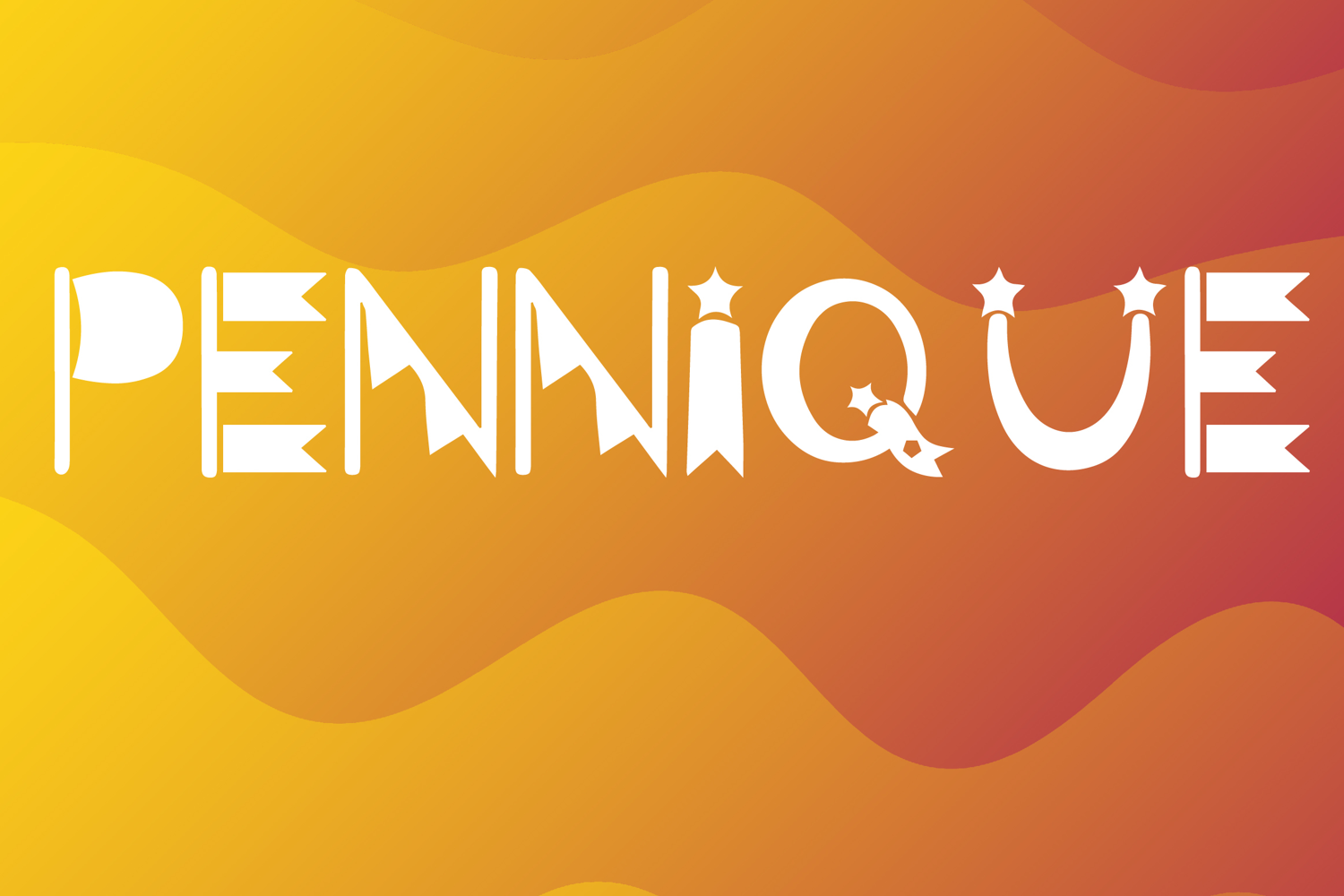
Pennique
Pennique-Regular
Pennique is a stylish decorative display font with a sleek modern style and playful artistic flair. Its uppercase letterforms feature slim vertical strokes, sharp geometric cut details, and charming star accents that create a clean, creative, and eye-catching look. Designed with uppercase letters A–Z and numbers 0–9, Pennique is perfect for branding, posters, packaging, logos, invitations, and social media graphics that need a fresh and memorable statement.